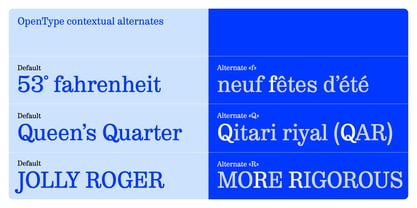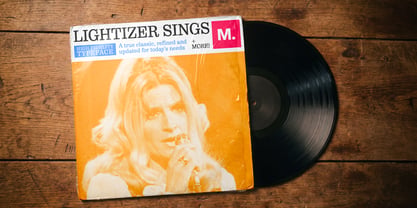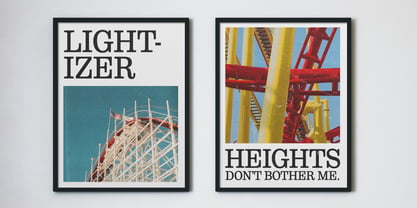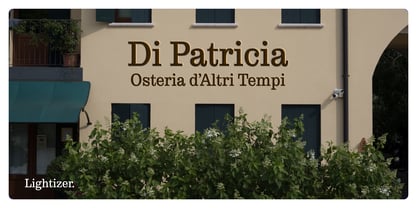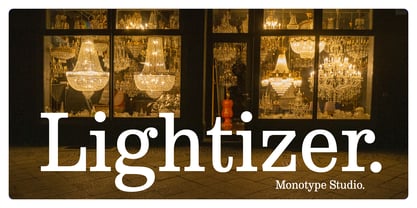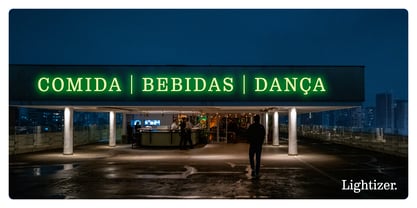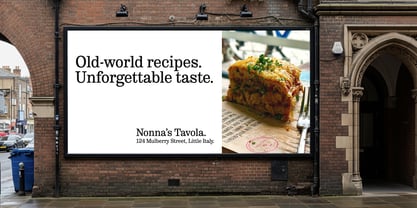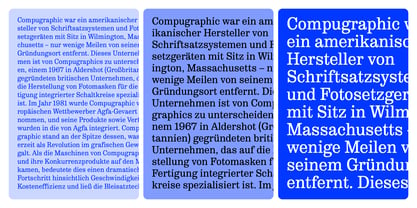
Lightizer
by Monotype
Lightizer is a tribute to a legendary Monotype colleague — Pat Lightizer — who began her career at Compugraphic Corporation and remained for 53 incredible years as the company evolved into the Monotype we know today. This design is a refined update to Compugraphic’s early digital version of a condensed book weight of Clarendon, itself derived from the bold styles originally produced in London by Robert Besley for the Fann Street Foundry in the mid-19th century. Just as Pat has been a part of the type industry’s remarkable evolution, Lightizer reflects the sophistication we expect from today’s fonts. This font is a crisp, clear, and compact display style for signage, headlines, advertising graphics, and more. OpenType alternates help to resolve tricky letter combinations, and it supports 360 languages, which makes this a versatile choice for a global audience.